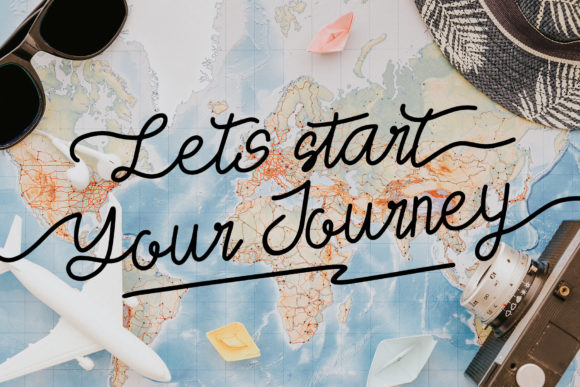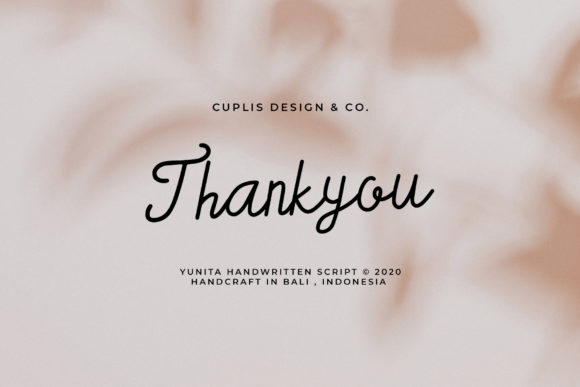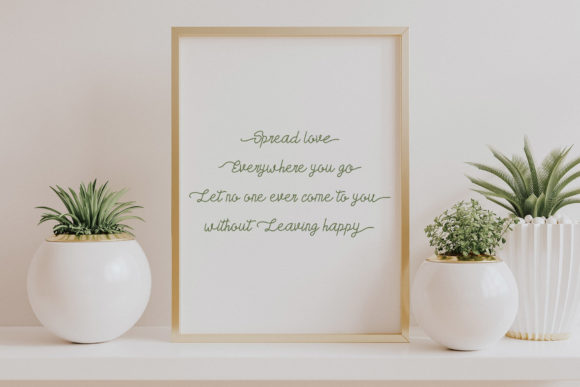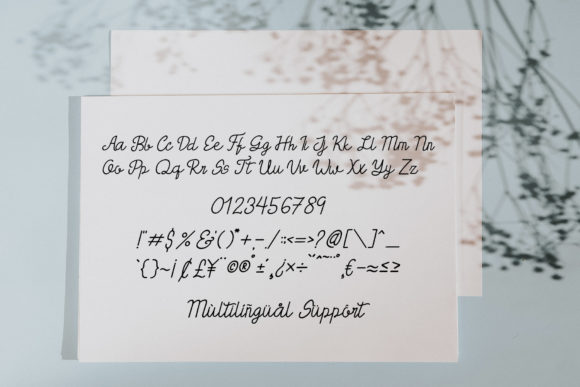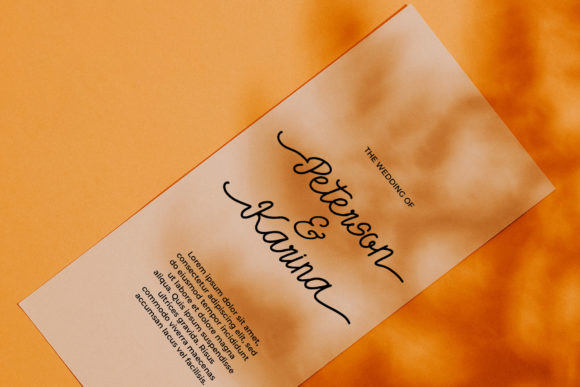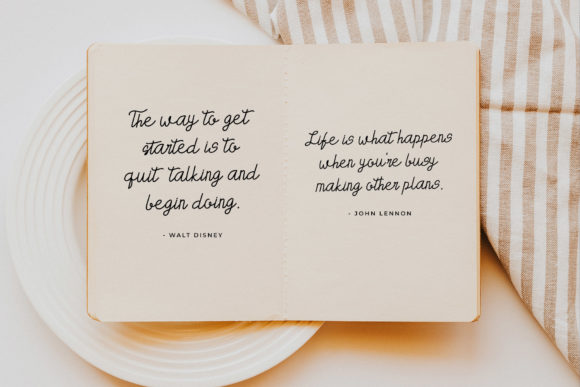
Yunita Font
About Yunita Font
Yunita is a handwritten script font with an elegant look. It can be used for creating awesome logos, labels, clothing, wedding invitations, quotes, blog title, , album covers,  and much more.